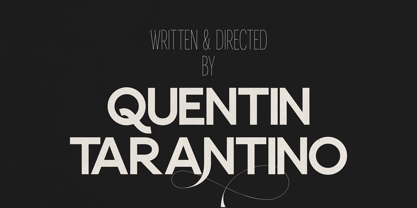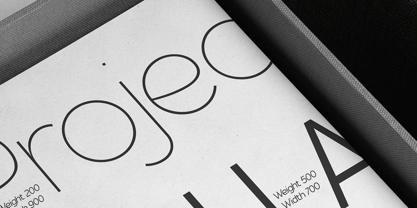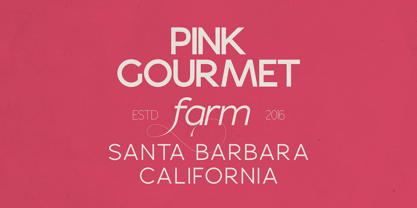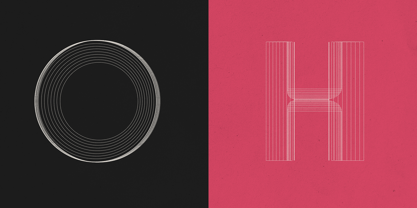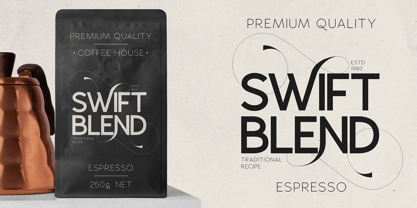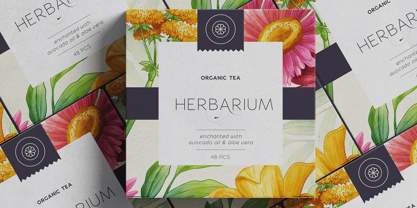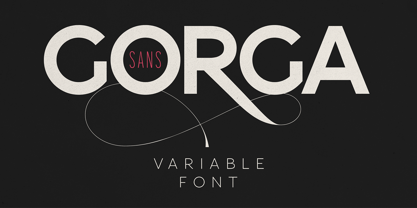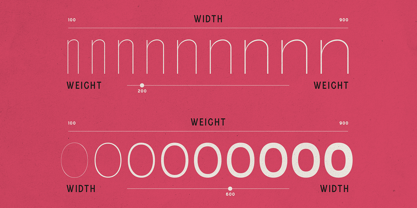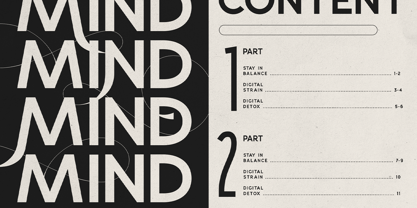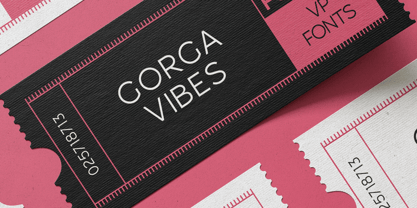
Gorga S VF
The Gorga S VF Font Family was designed by Vladimir Fedotov, Plamen Petrov and published by VP Creative Shop. Gorga S VF contains 2 styles and family package options. More about this family
Gorga Sans is a powerhouse variable sans serif font family from Thin Ultra Condensed to Black Ultra Expanded, each paired with elegant italic counterparts. Designed for maximum flexibility, it’s the ultimate type system for designers who demand both refined aesthetics and technical range. With two variable fonts (Regular & Italic), Gorga Sans allows you to fine-tune weight and width on a sliding scale — making it perfect for responsive branding, adaptive interfaces, editorial designs, and expressive typography.